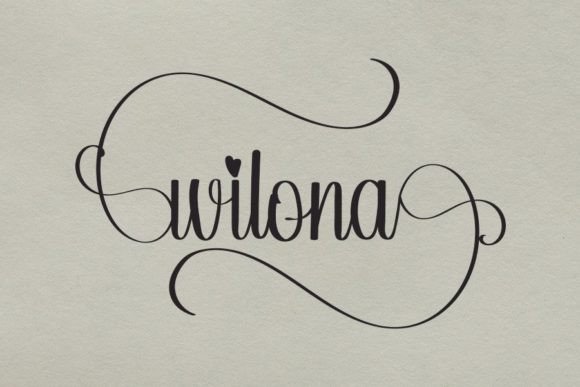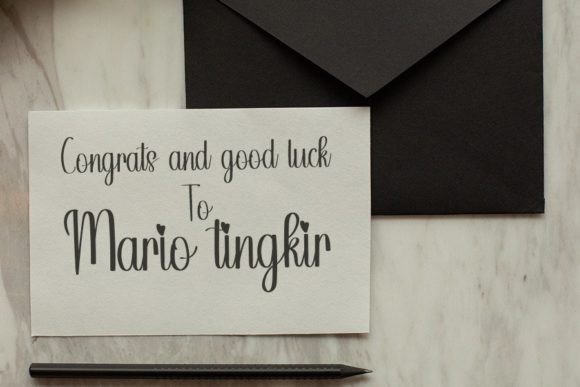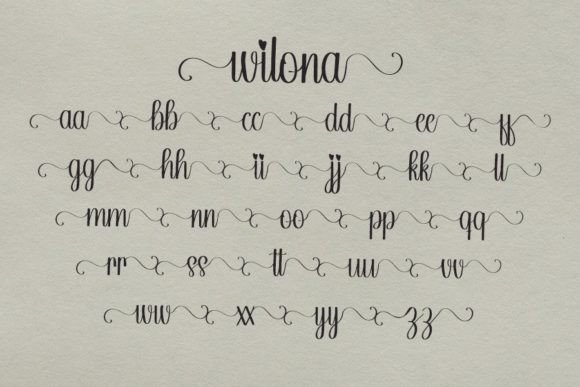
“Wilona Font: Friendly Handwritten Elegance with a Contemporary Twist
Introducing Wilona, a friendly handwritten font meticulously crafted to become a true favorite in your font collection. This font maintains its classy calligraphic influences while exuding a contemporary and fresh feel. With Wilona, you can add a touch of elegance to your creative projects and make them truly outstanding.
More than just a font, Wilona is a design companion that brings a unique blend of friendliness and sophistication to your projects. Its carefully designed characters maintain a sense of class while introducing a fresh and modern aesthetic.
The versatility of Wilona shines through in its ability to enhance the visual appeal of diverse projects. Whether you’re working on digital graphics, print materials, or any other creative endeavor, Wilona adapts effortlessly to elevate the aesthetics of your designs.
For logo design and branding projects, Wilona becomes a distinctive choice, adding a touch of friendliness and timeless elegance. The font’s balance of classic and contemporary elements makes it ideal for creating memorable and impactful brand identities.
In various design projects, Wilona brings a sense of sophistication and freshness, making it visually appealing and engaging. Its friendly handwritten style is versatile, allowing you to use it in a range of creative applications.
In conclusion, Wilona is more than just a font; it’s a design companion that brings friendly handwritten elegance with a contemporary twist to your creative toolkit. Let Wilona be the brushstroke that enhances the beauty of your projects. Embrace the versatility and timeless charm of Wilona, and watch as it transforms your ideas into visually enchanting experiences.”